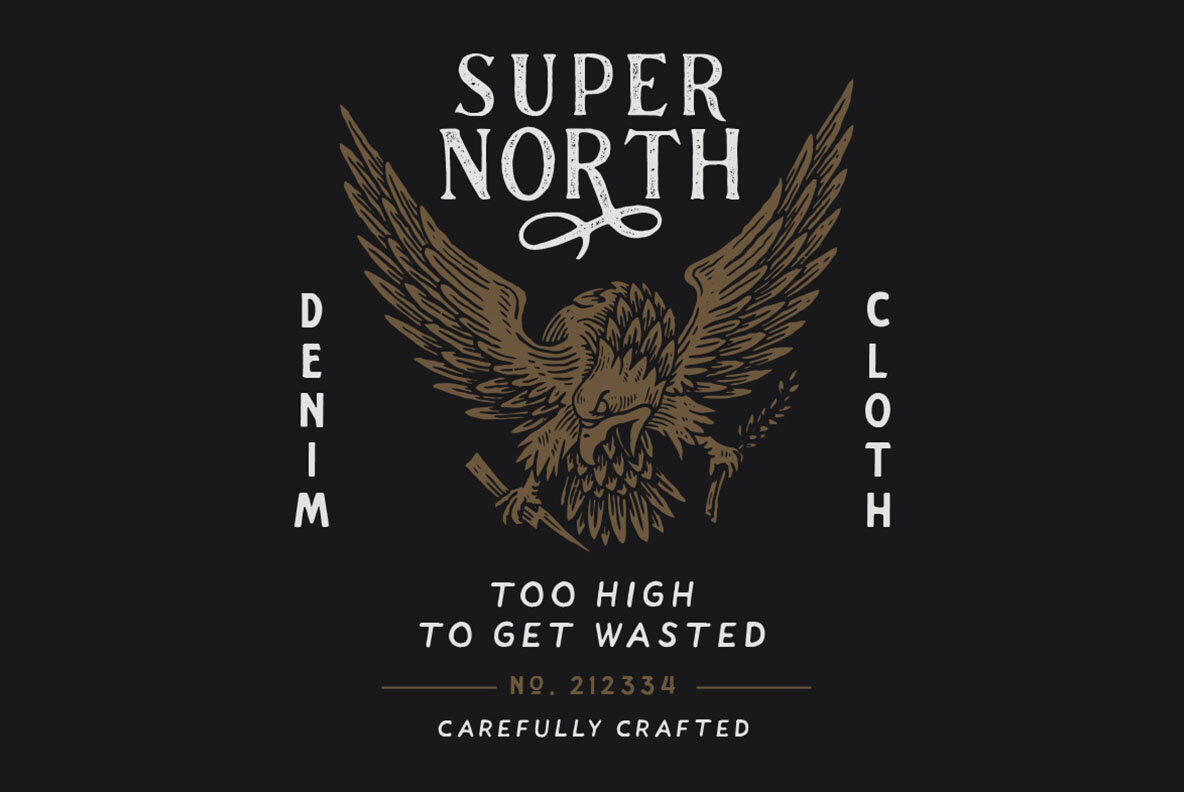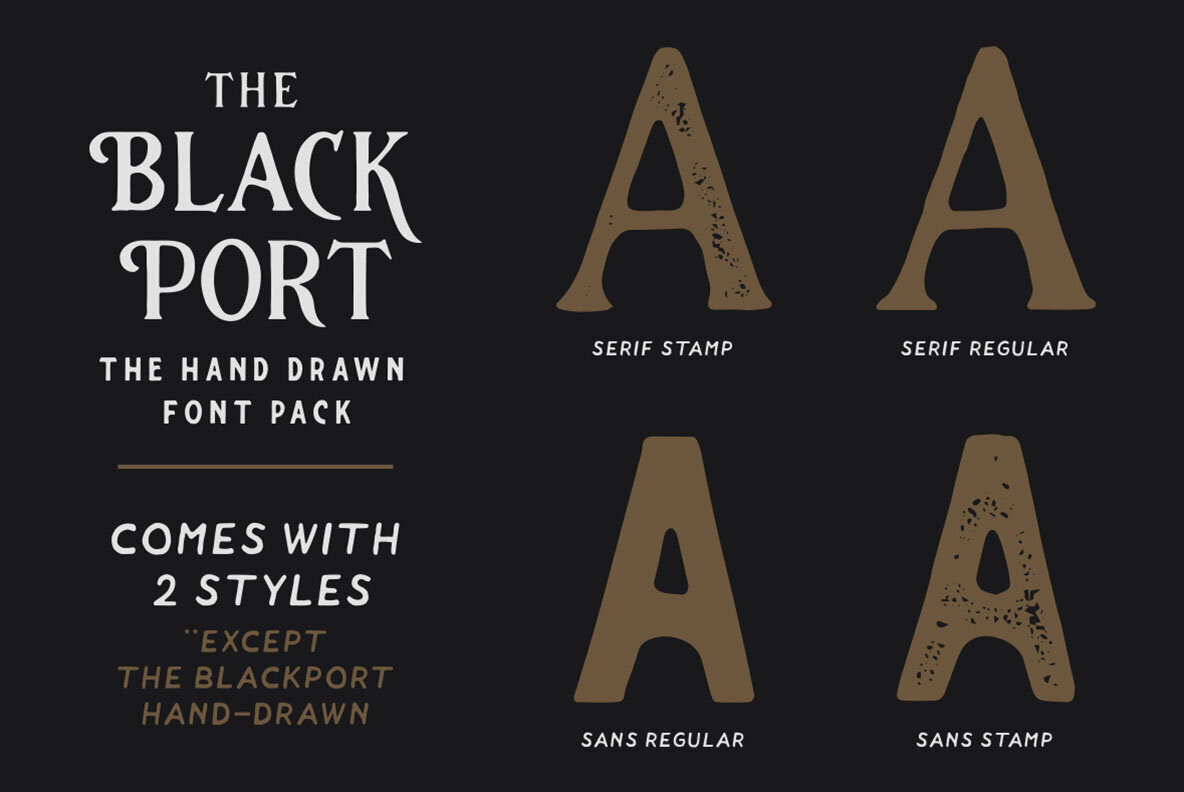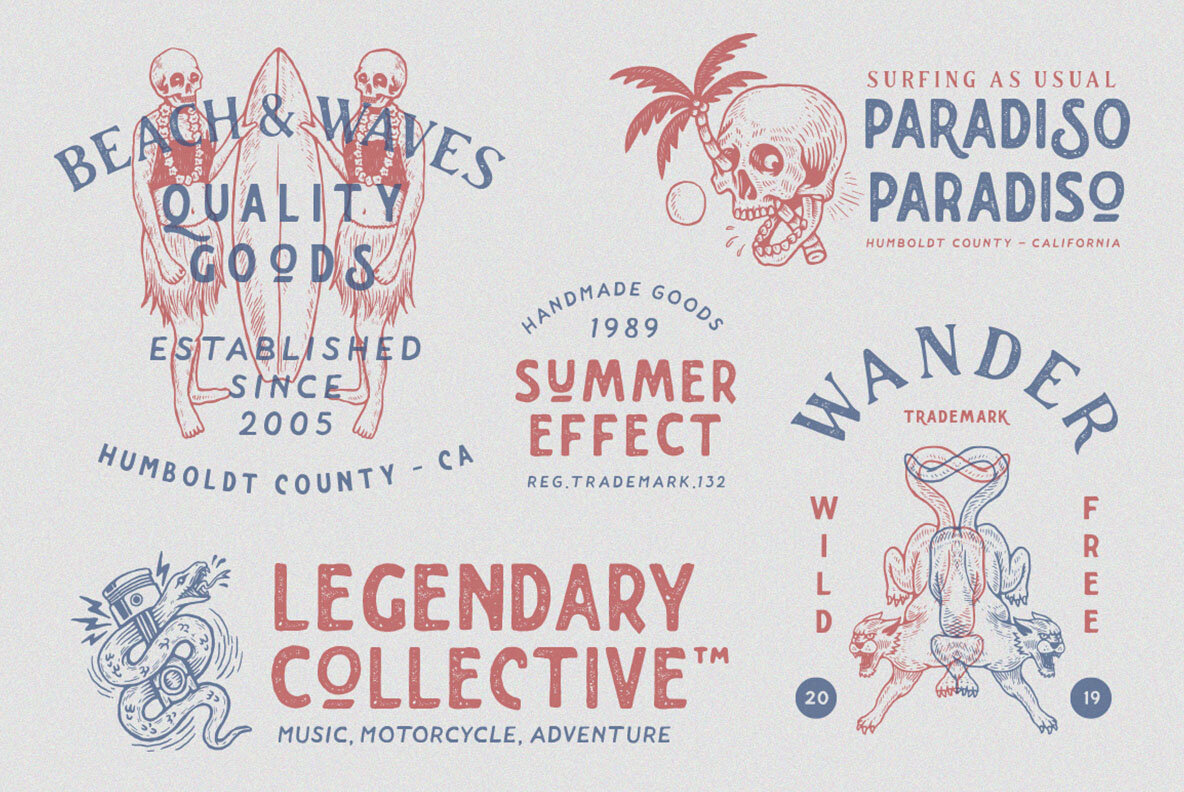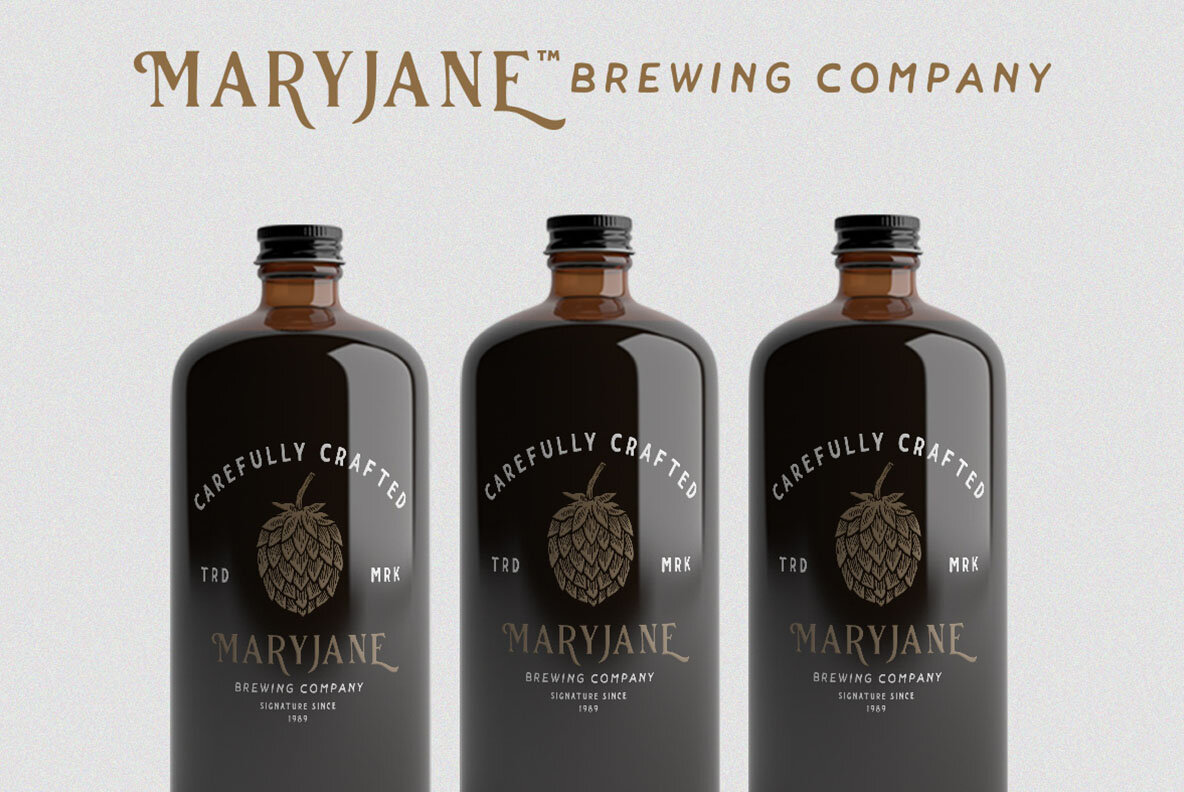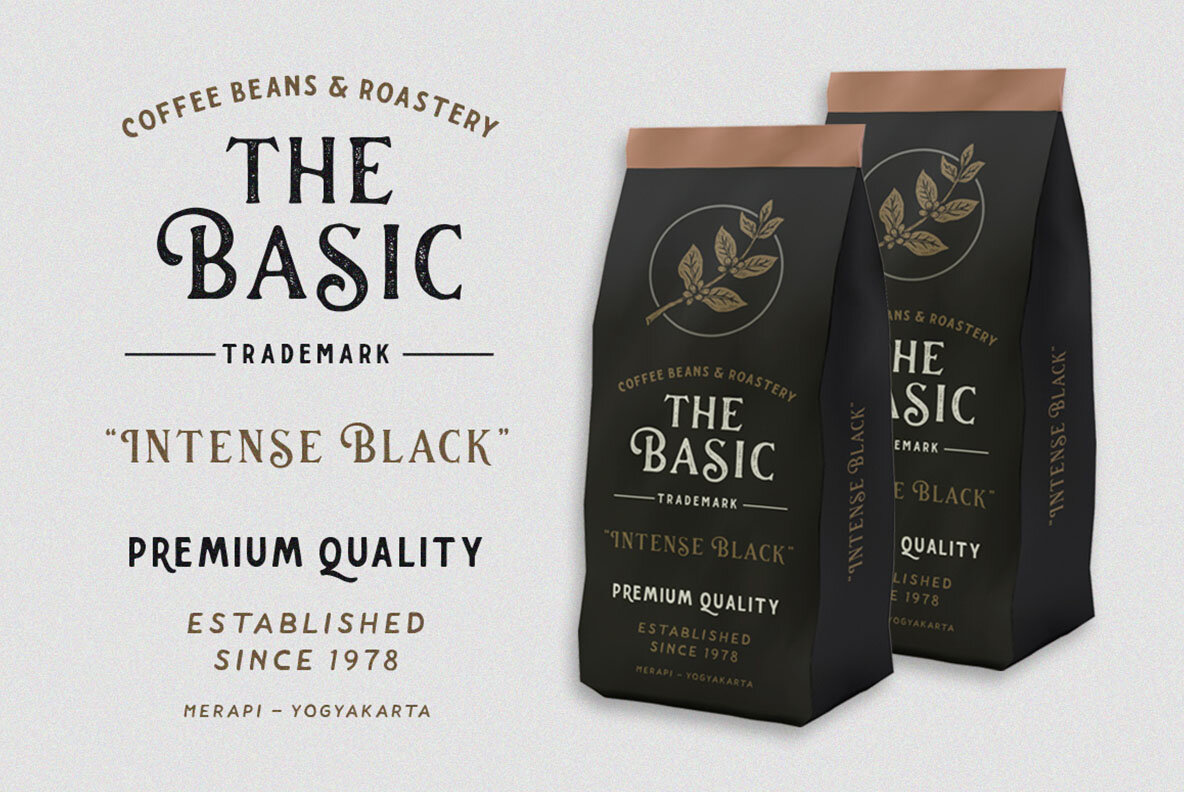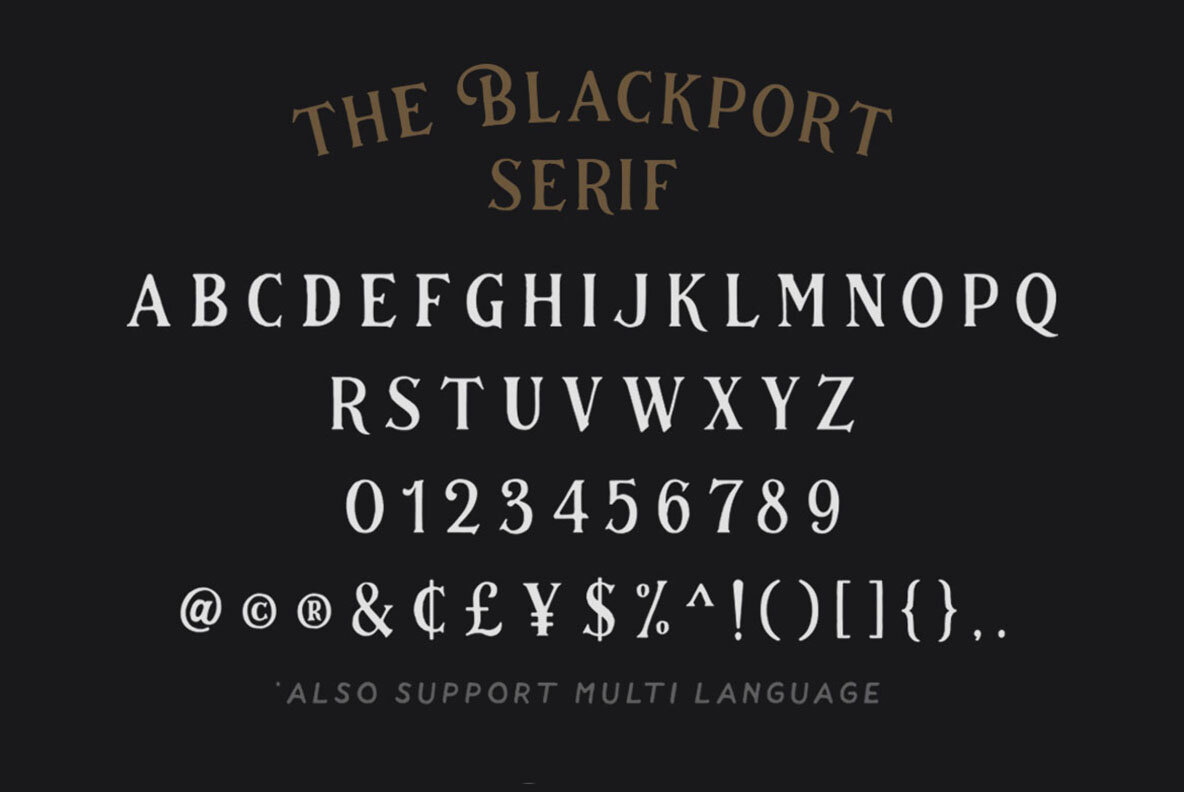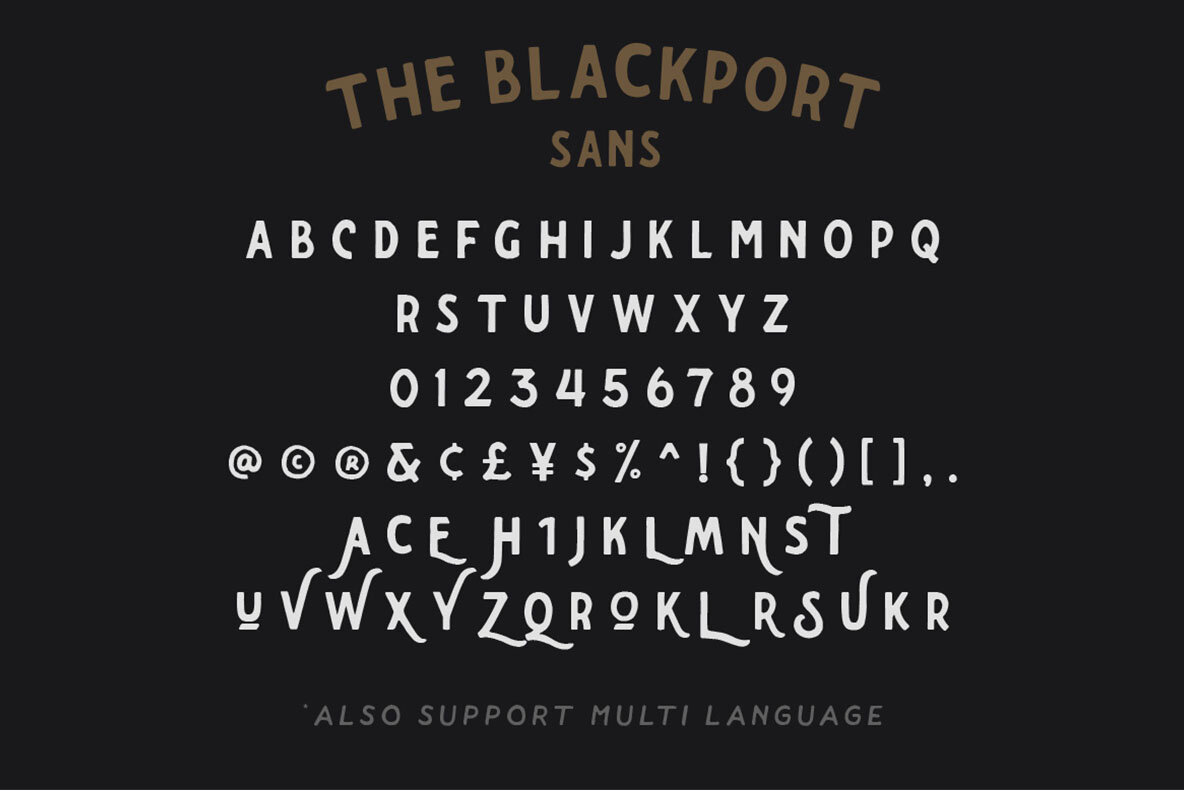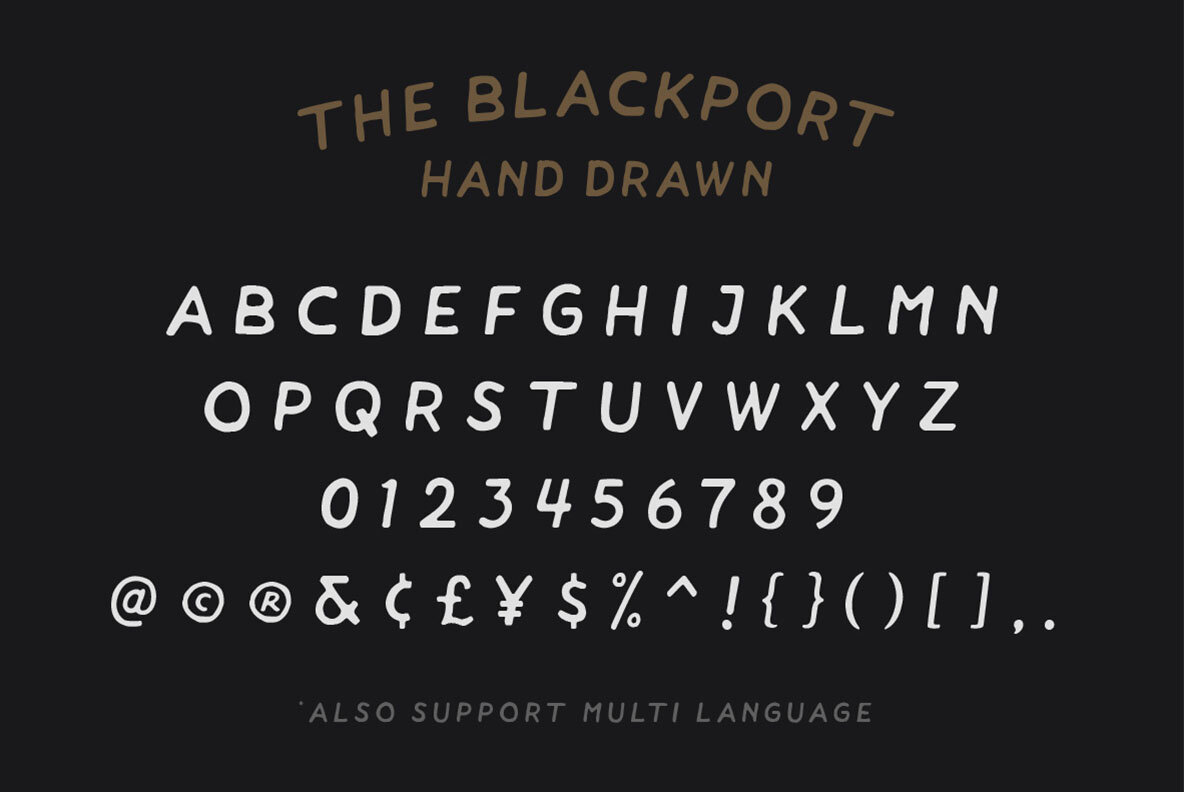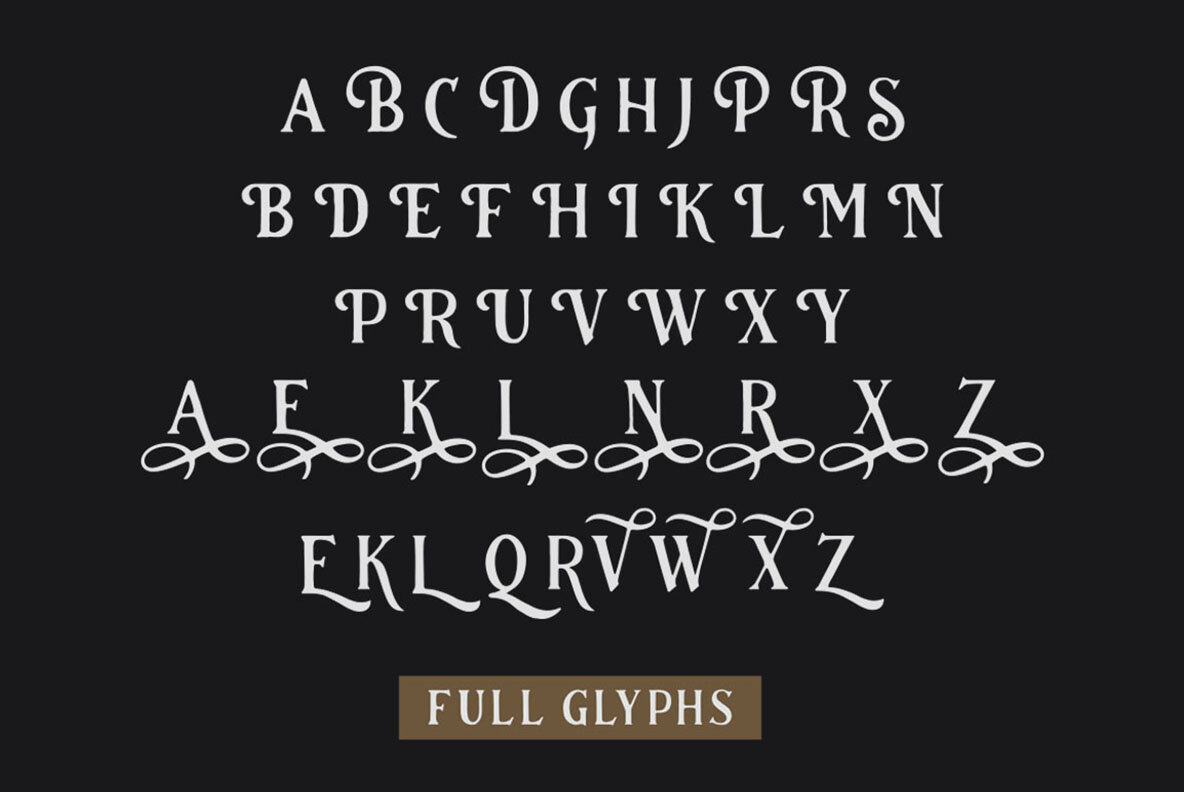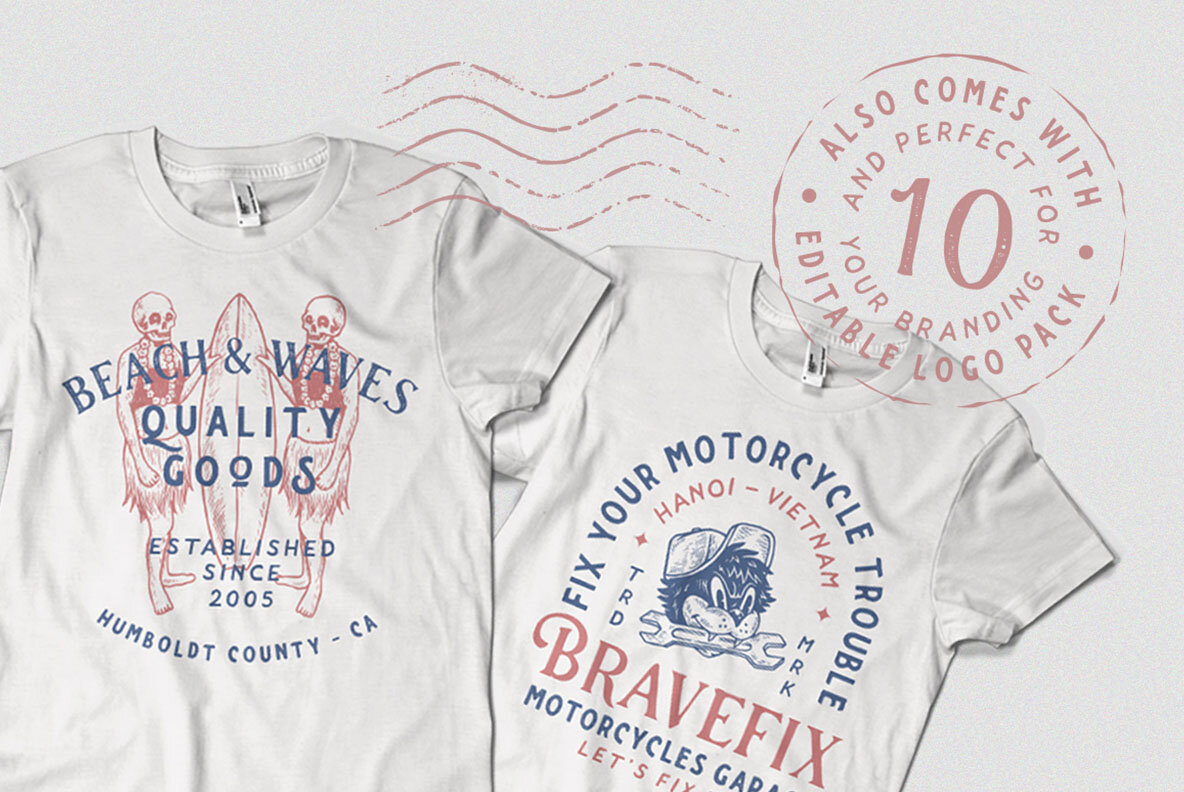
The Blackport Font
The Blackport Sans
The Blackport Hand Drawn
The Blackport Sans Stamp
The Blackport Serif
The Blackport Serif Stamp
Immerse yourself in the nostalgic allure of The Blackport Font Pack. This expertly crafted typeface evokes a sense of vintage craftsmanship, echoing the elegance of classic designs. Its hand-drawn quality infuses projects with a truly authentic handmade appearance, ideal for those seeking a retro aesthetic with a personal touch.The Blackport: Hand-Drawn Vintage Charm